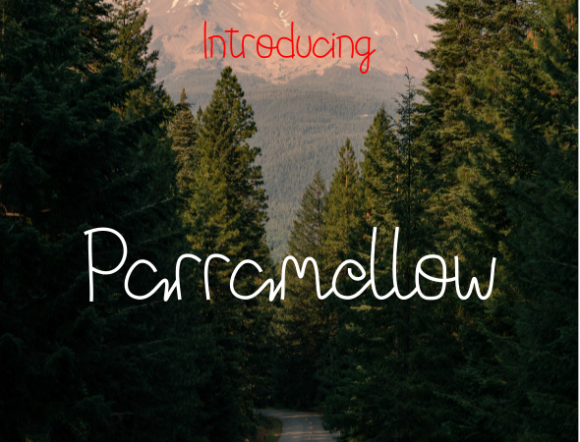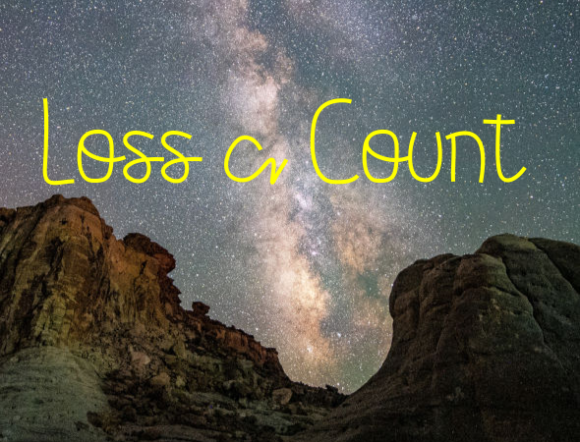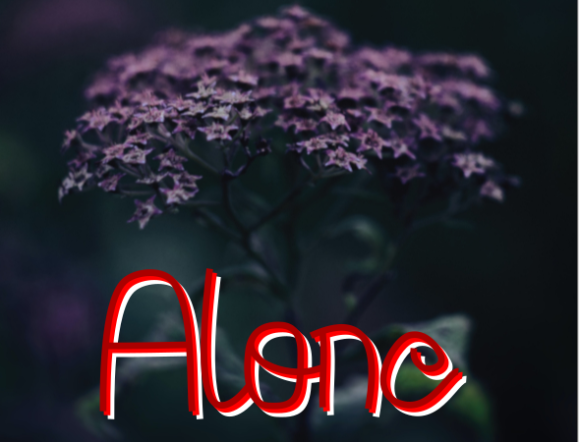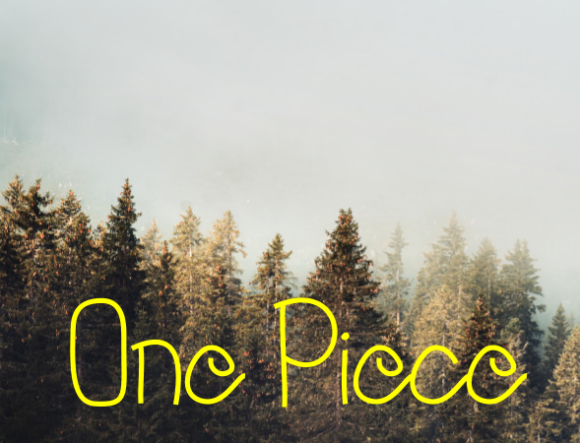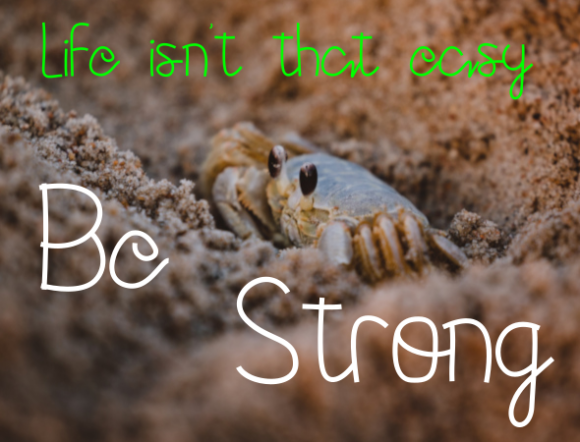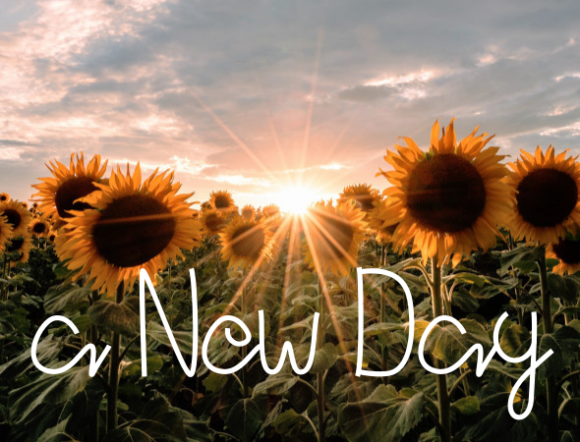
Parramellow Font
About Parramellow Font
Parramellow is an adorable and charming handwritten font characterized by its cute, simple, and thin lettering. With its sweet and friendly style, this font is a fantastic choice for adding a touch of brightness and cheerfulness to your designs. Whether you’re working on invitations, greeting cards, children’s books, or any other project that calls for a playful aesthetic, Parramellow can bring a delightful and whimsical element to your creations. Its simplicity and thin lettering make it versatile and easy to incorporate into various design styles. Choose Parramellow to infuse your designs with a warm and inviting vibe that will captivate viewers and put a smile on their faces.